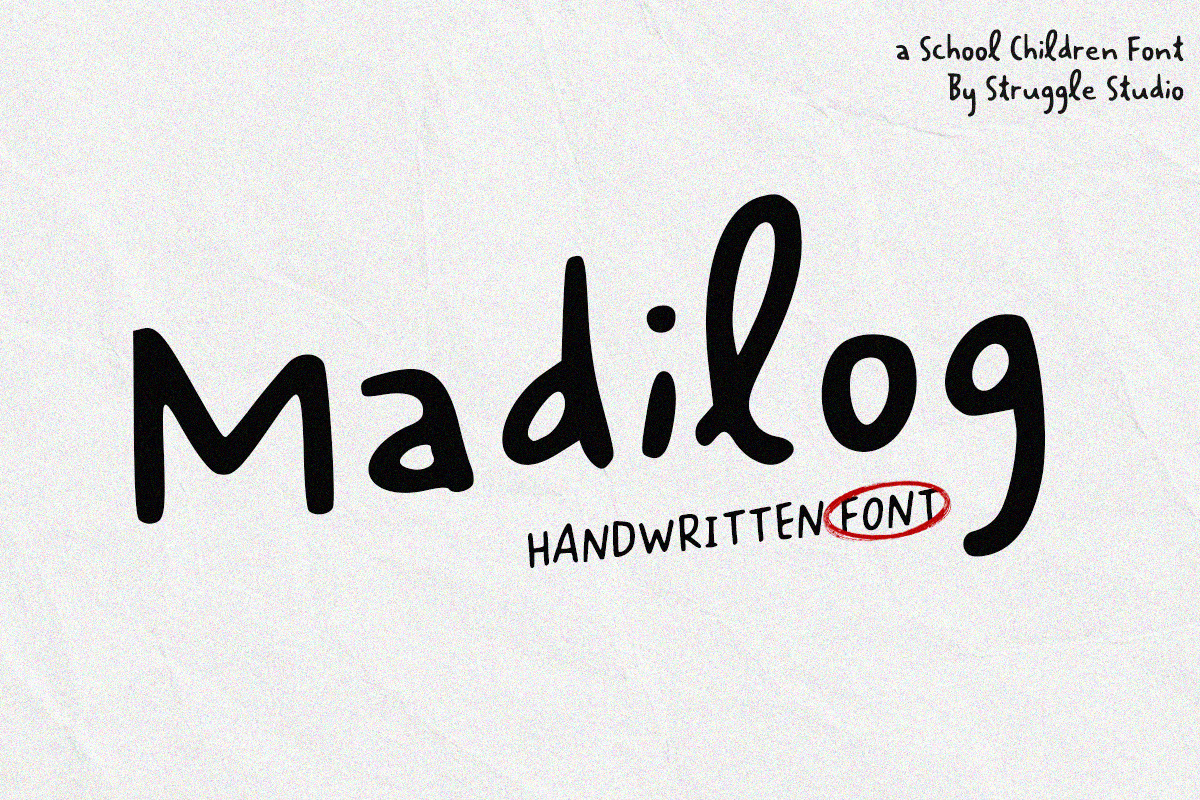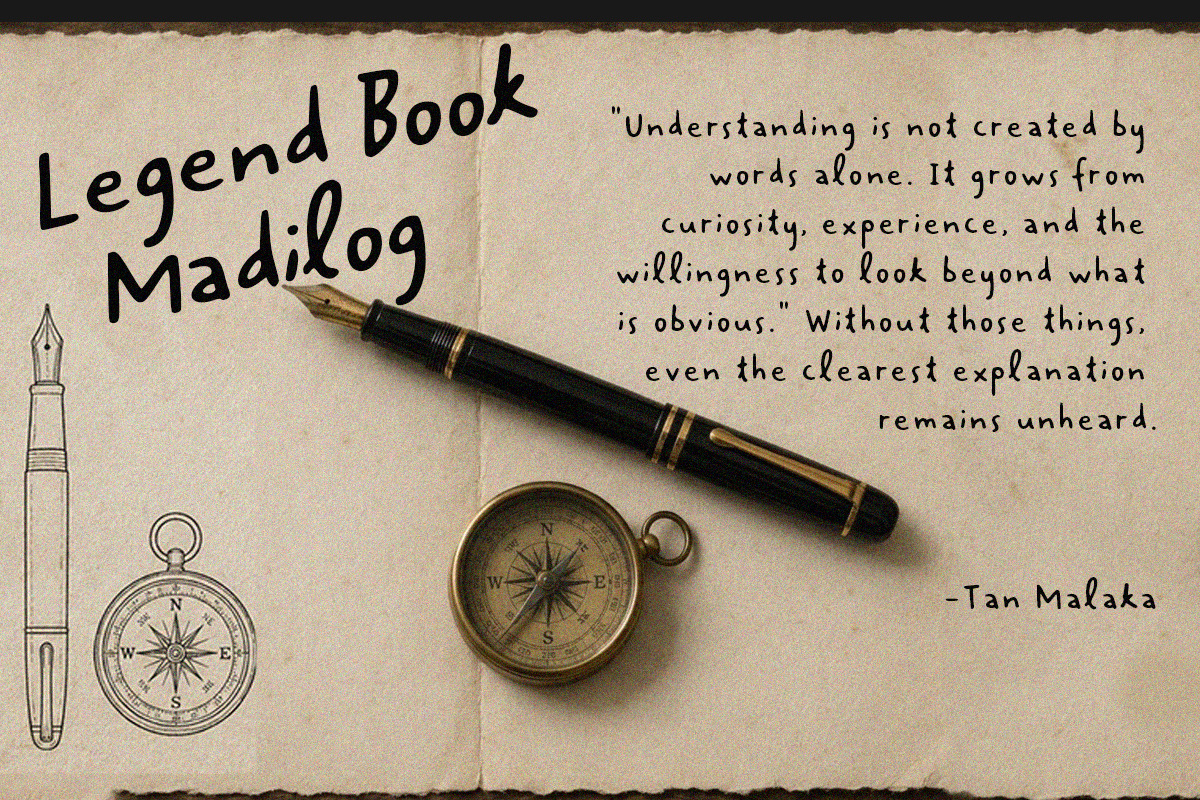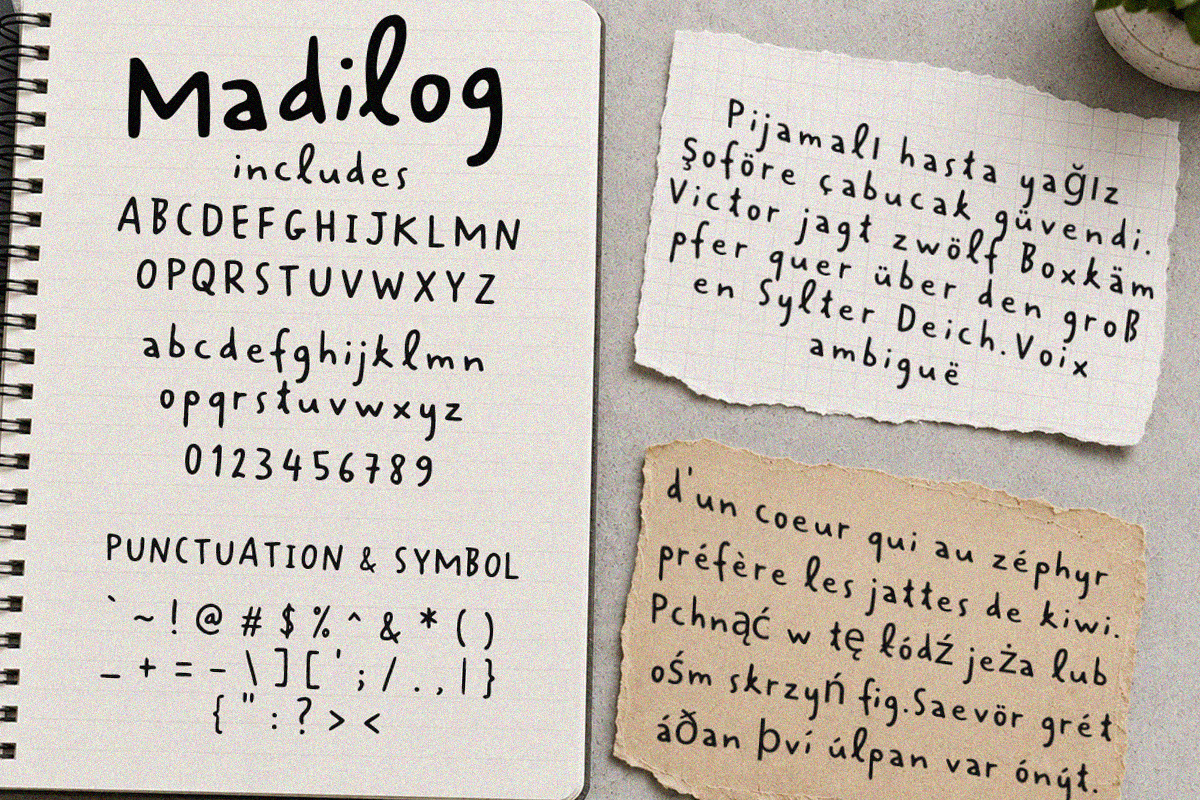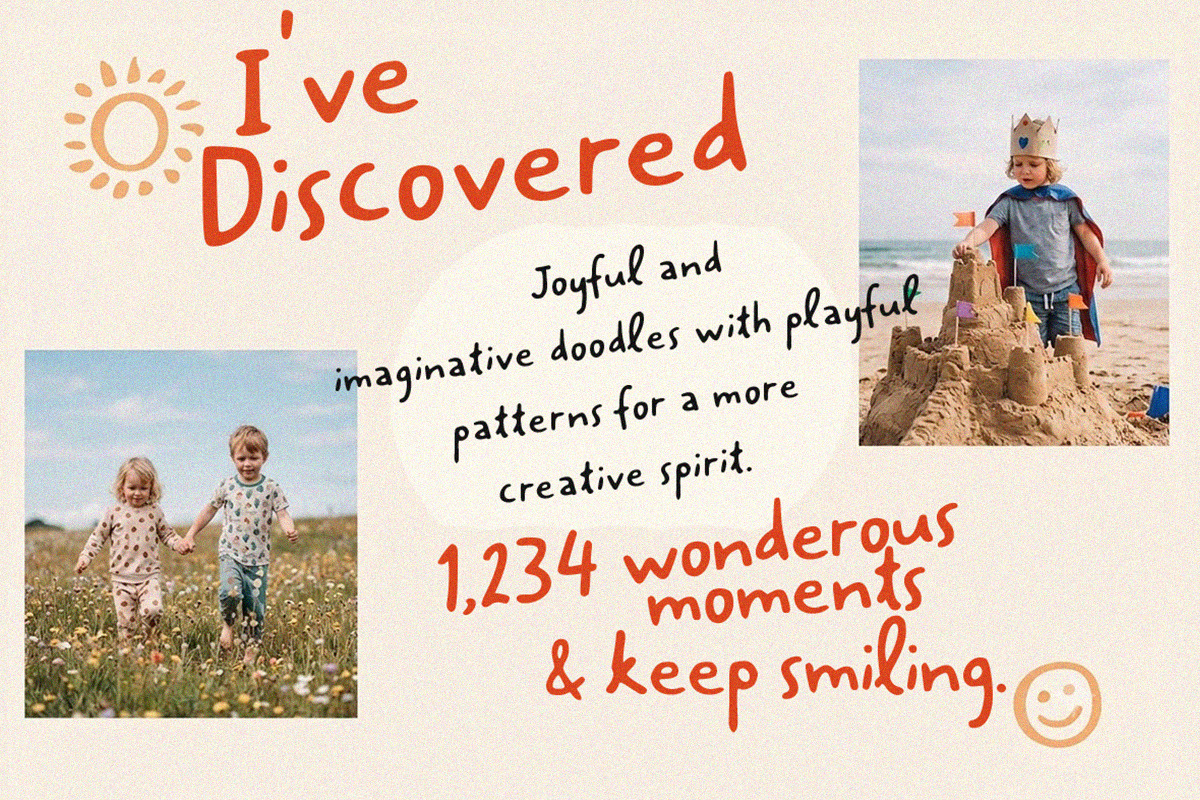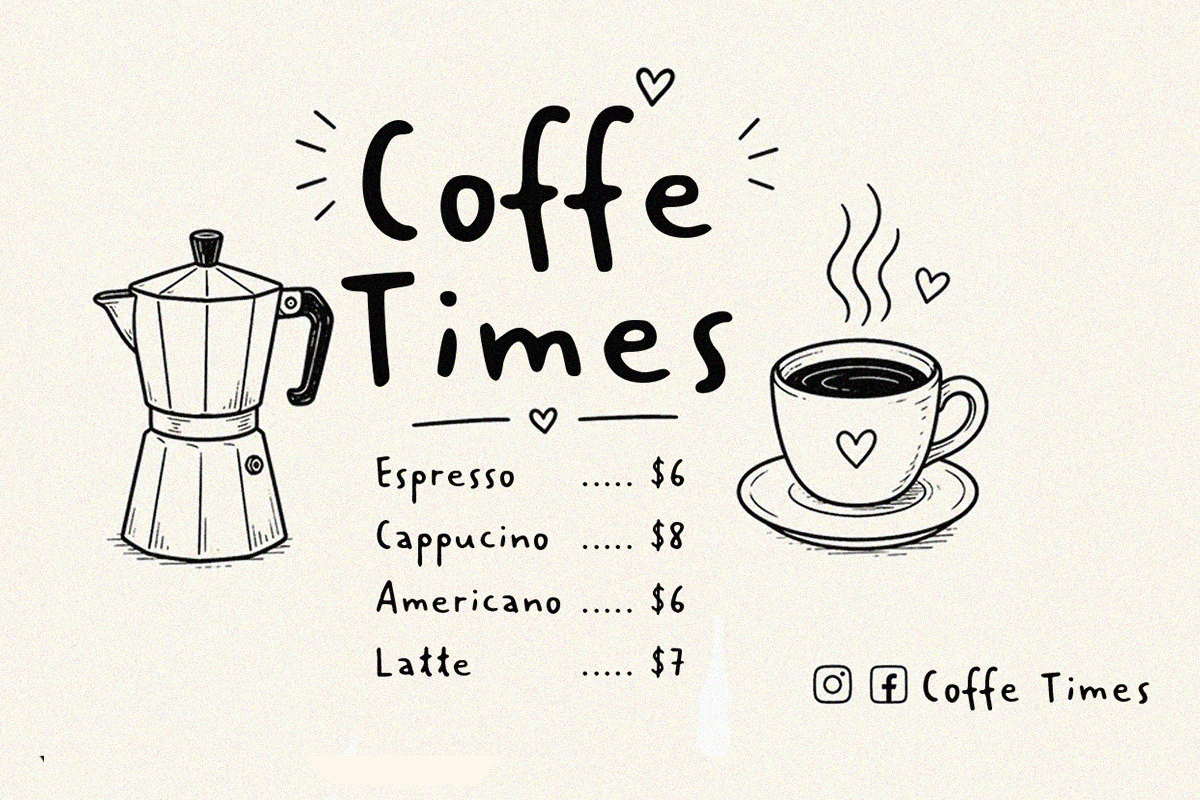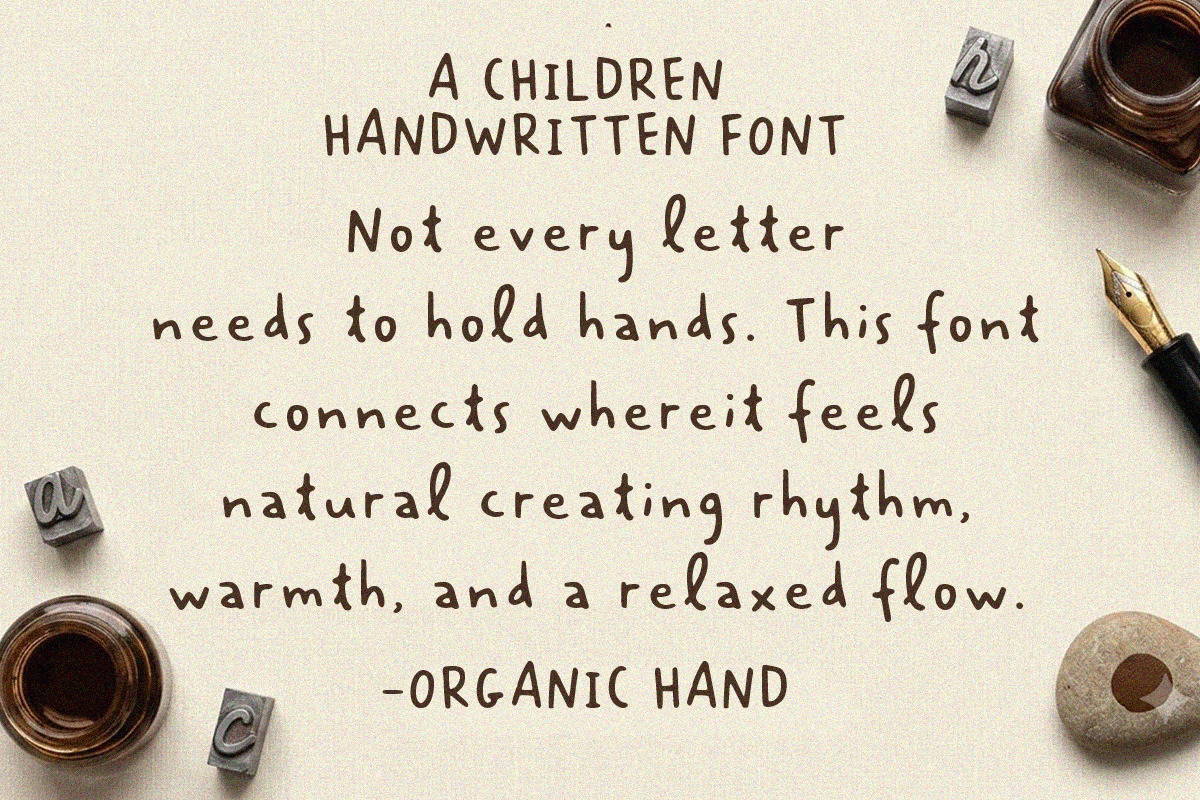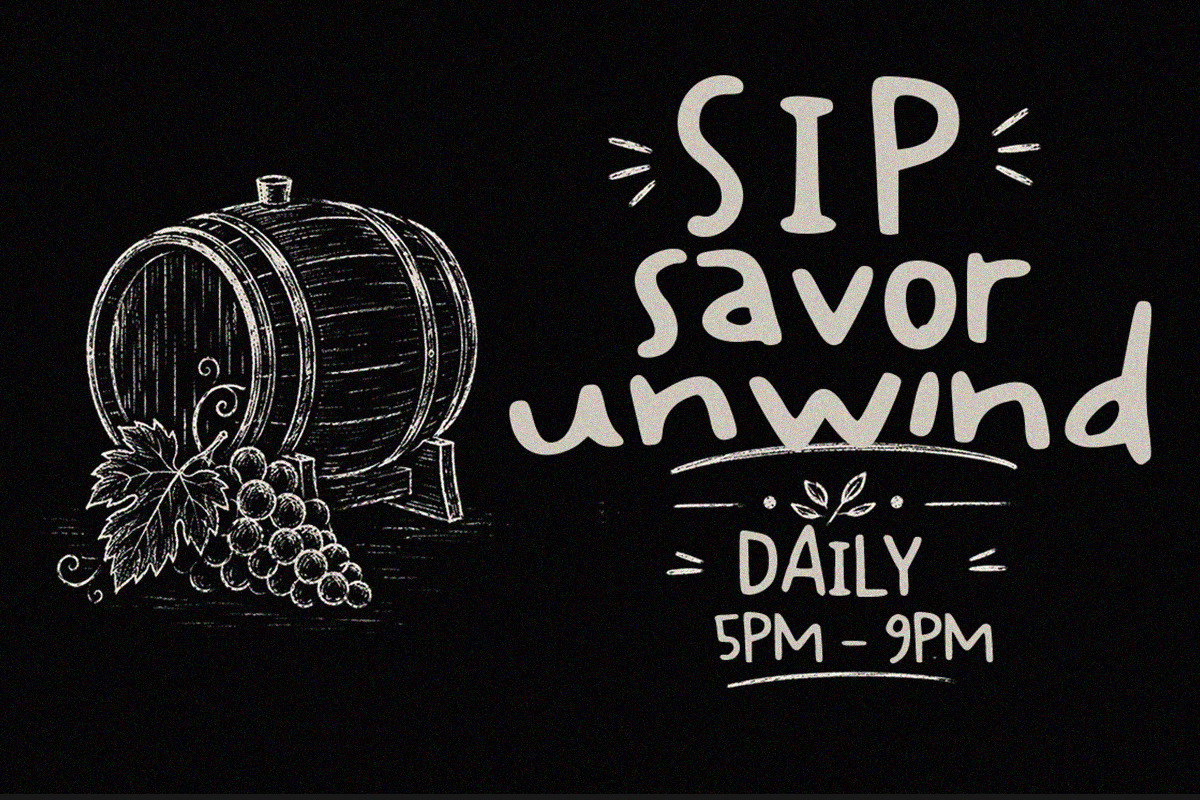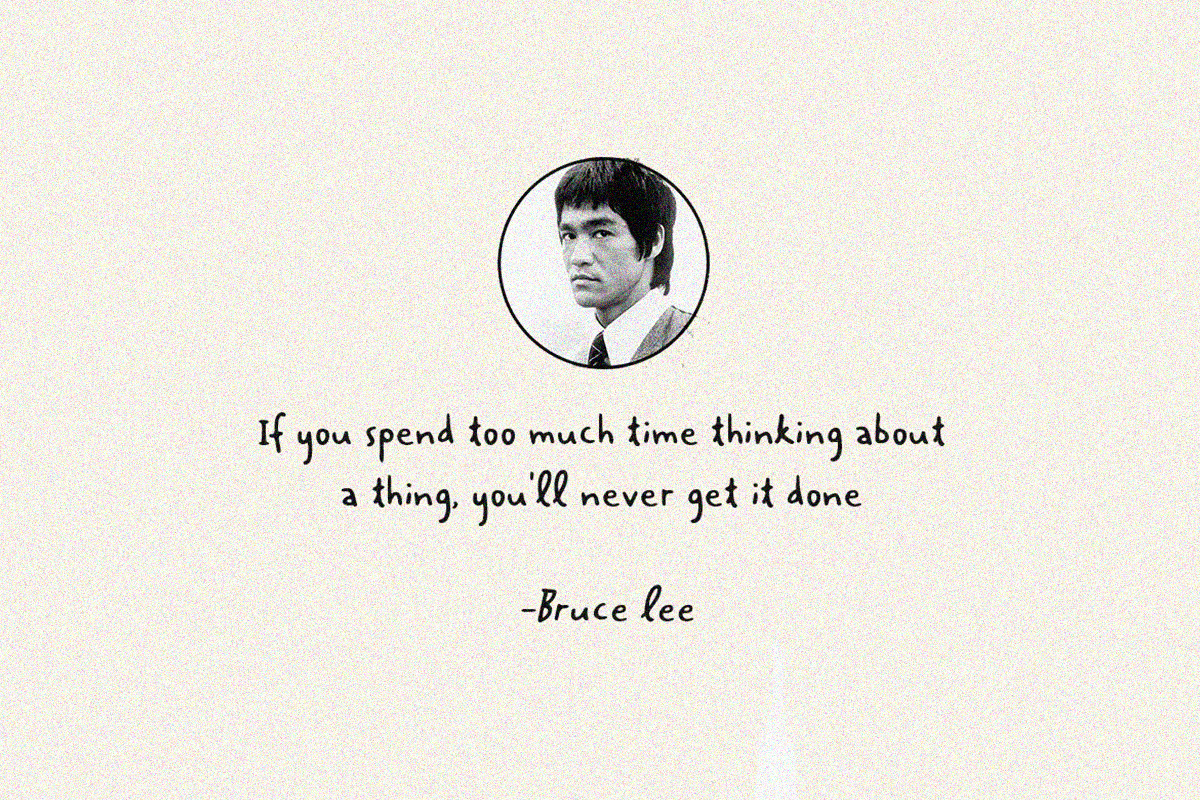
Madilog – A Playful Children Font
Madilog – A Playful School Children Font
Bring a touch of innocent joy and youthful creativity to your designs with Madilog, a delightful handwritten font designed to mimic the charming, innocent handwriting of school children. Created by Struggle Studio, this font captures the authentic, raw, and playful essence of learning how to write.
With its natural imperfections and friendly curves, Madilog is perfect for projects that need a warm, approachable, and nostalgic human touch.
Authentic Childlike Vibe: Perfectly mimics the playful and naive look of kids' handwriting.
Versatile Design: Ideal for a wide range of creative projects.
Easy to Read: Despite its handwritten nature, it maintains excellent legibility.
Children’s books and storybook covers
School posters, flyers, and educational materials
Cute branding, logos, and packaging
Greeting cards, birthday invitations, and nursery decor
Social media graphics and playful merchandise (T-shirts, mugs, stickers)